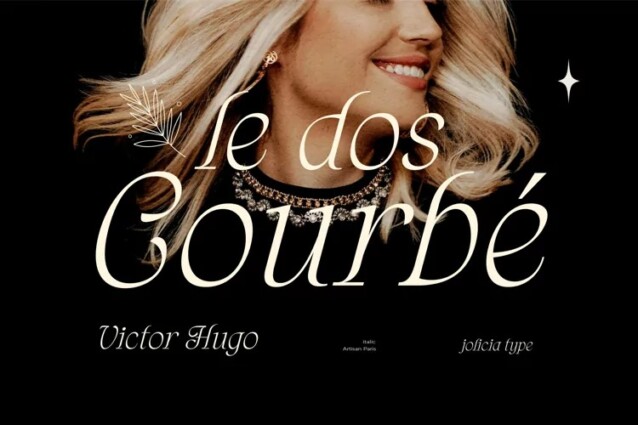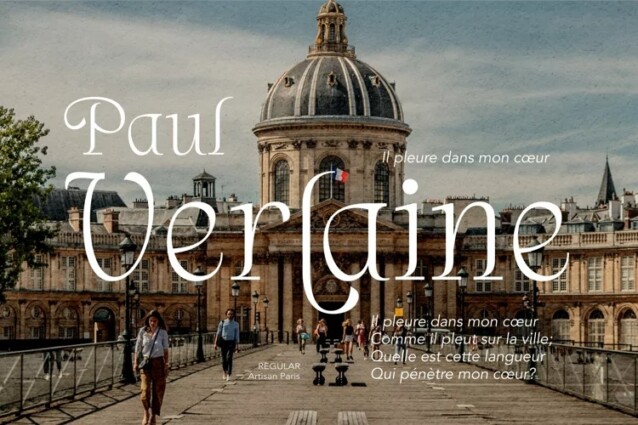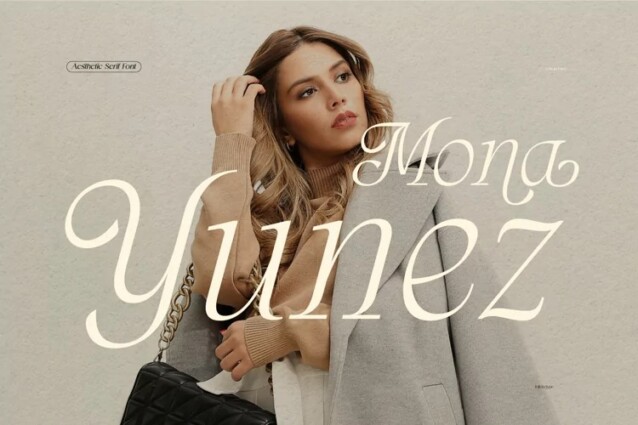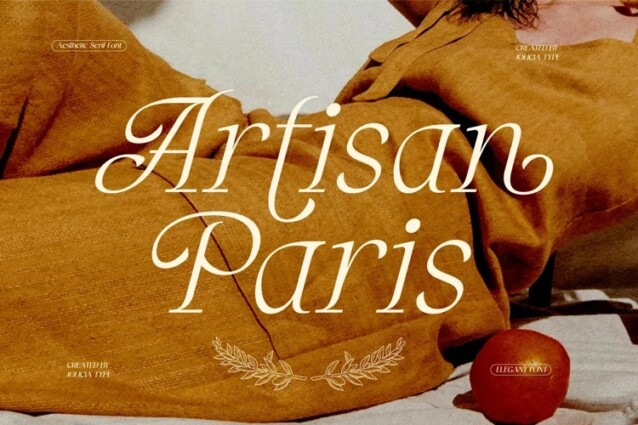
Artisan Paris Font is a versatile, modern, and elegant font manufactured by The Ocean Studio. It has a unique style with standard ligatures, and supports multilingual languages. It’s a mesmerizing display font crafted with a delicate and aesthetic feminine style. Ideally to be applied to other various formal forms such as invitations, labels, logos, magazines, books, greeting/wedding cards, packaging, fashion, makeup, stationery, novels, labels or any advertising purpose.